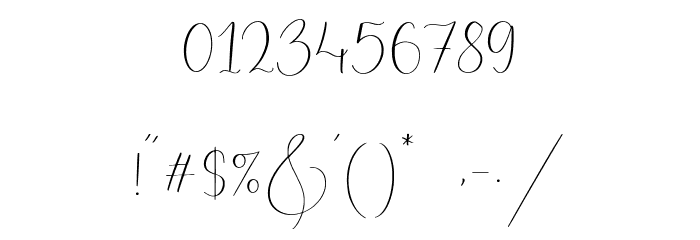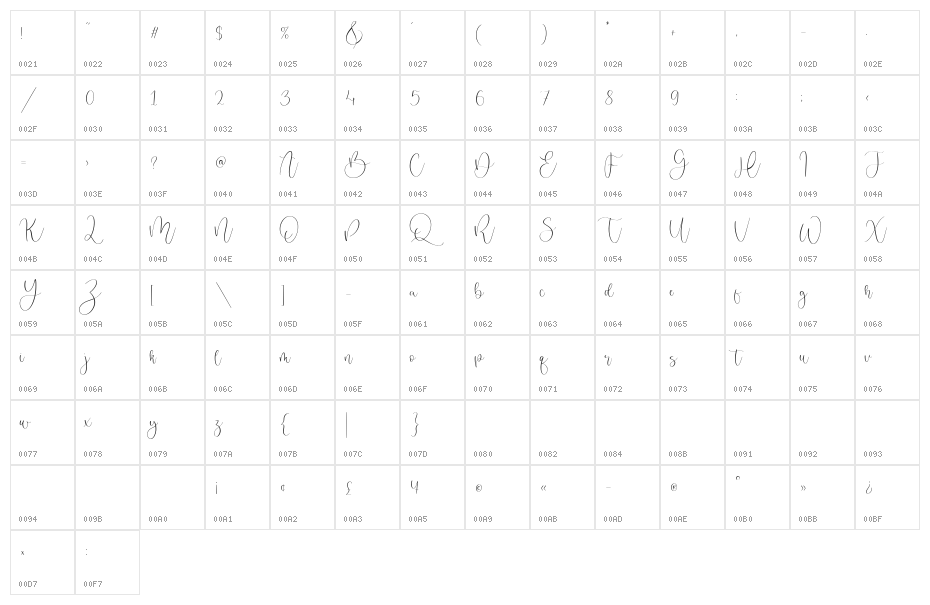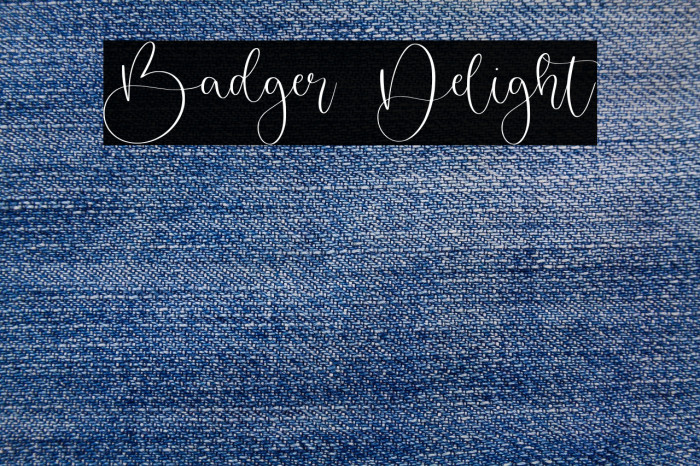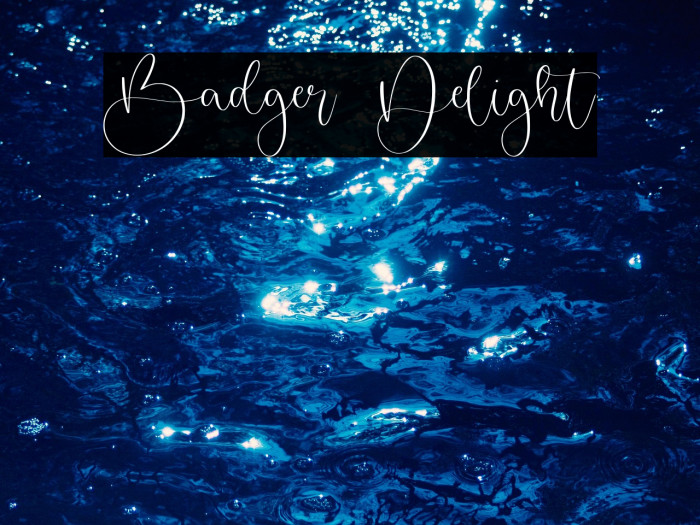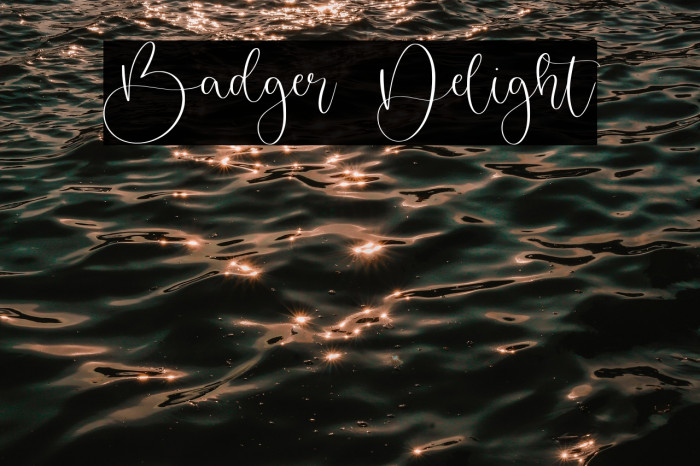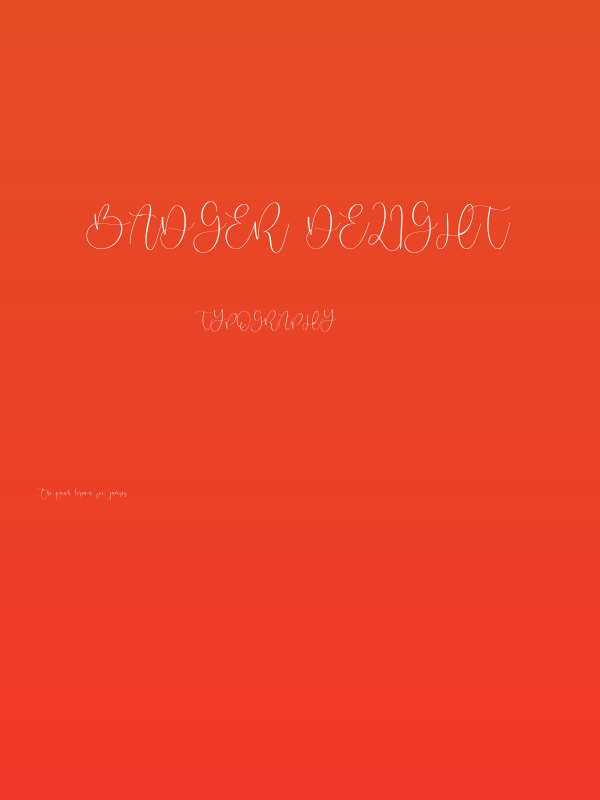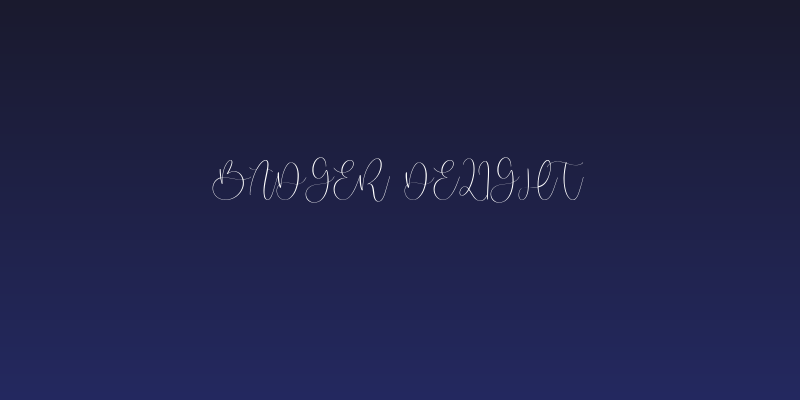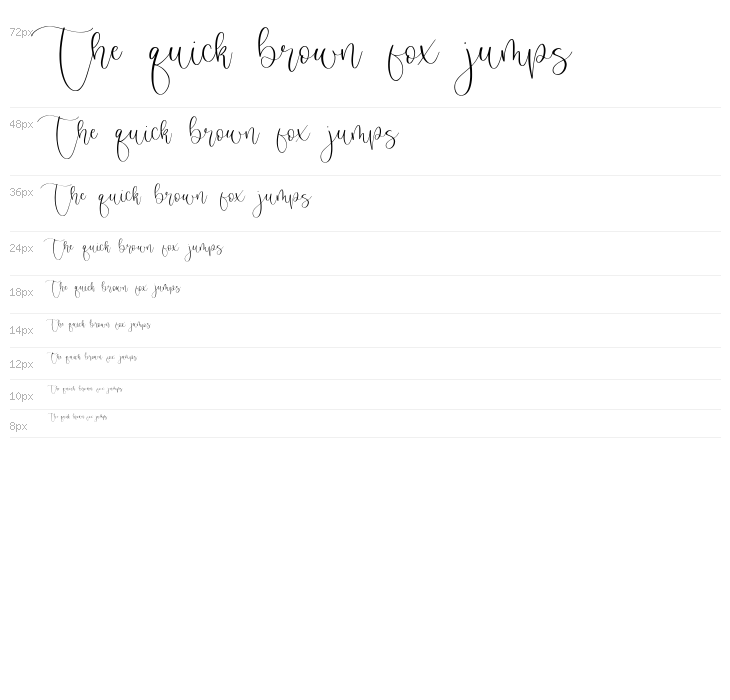
Badger Delight Font
Badger Delight Description
This font features an elegant, flowing script style with a handwritten appearance. The letters are connected with smooth, sweeping curves, giving it a sophisticated and graceful look. The uppercase letters are tall and slightly exaggerated, while the lowercase letters maintain a consistent flow. The numerals and special characters are designed to match the overall aesthetic, with a delicate and artistic flair. This font is perfect for projects that require a touch of elegance and personal expression.
| Proposed Projects | Ideal for wedding invitations, greeting cards, personal branding, and elegant packaging designs. |